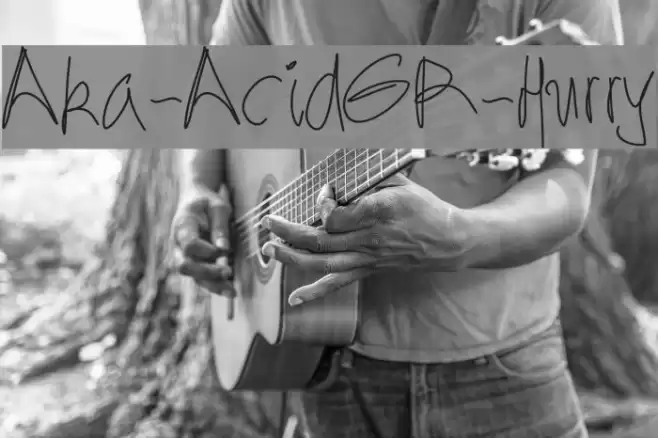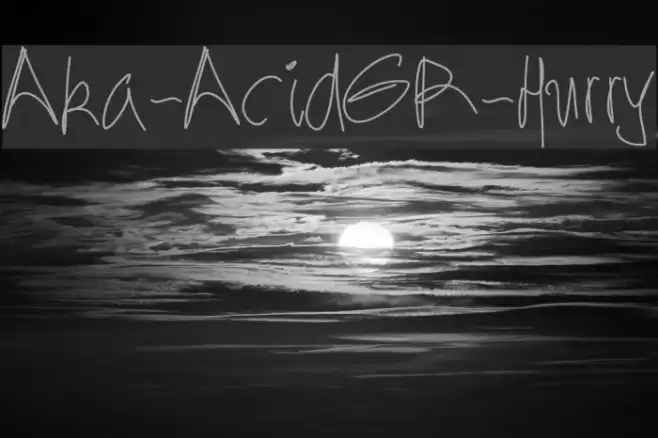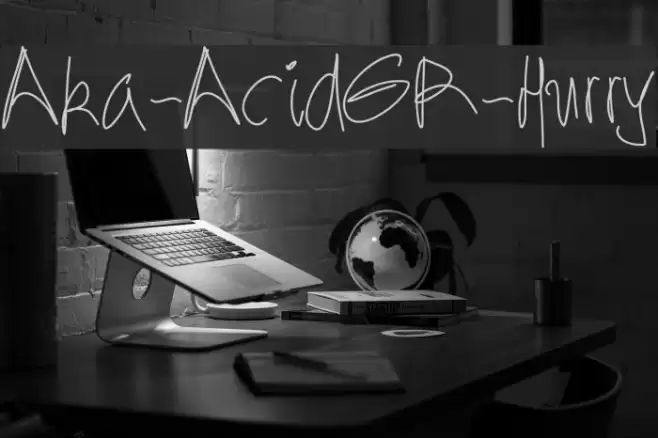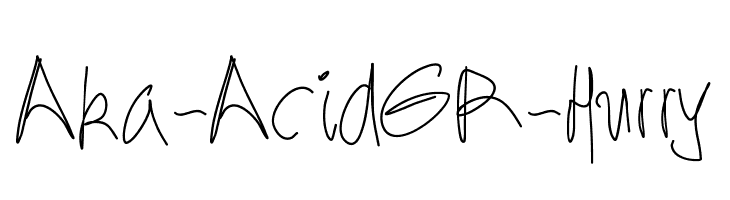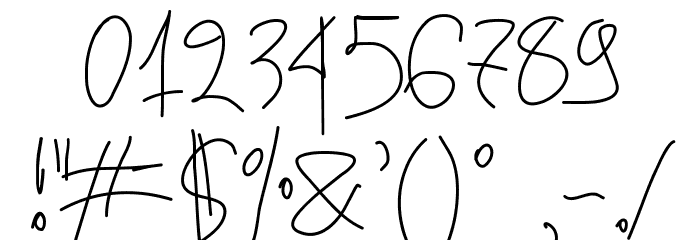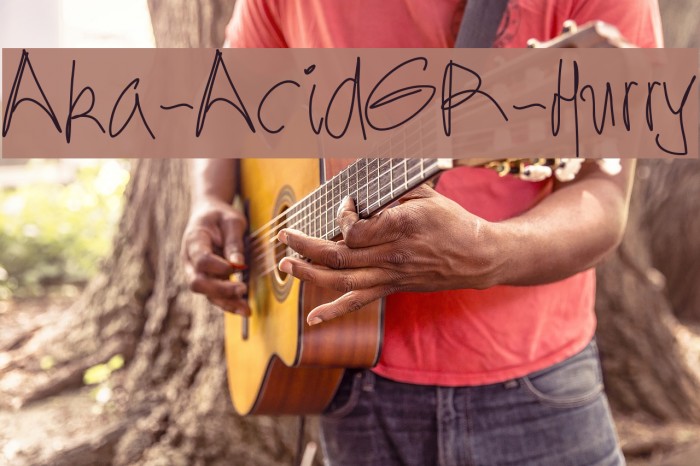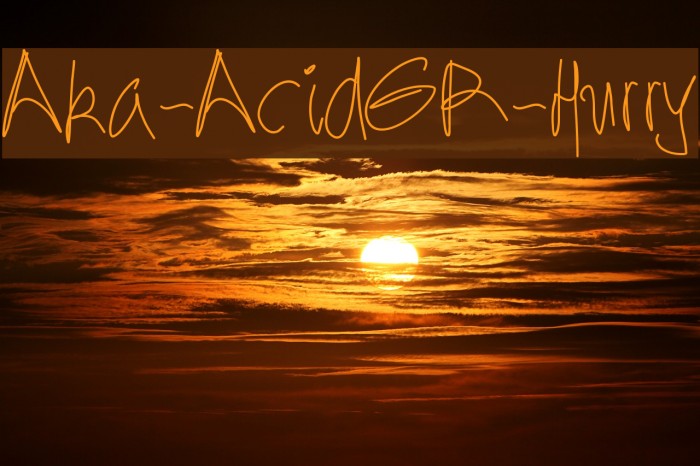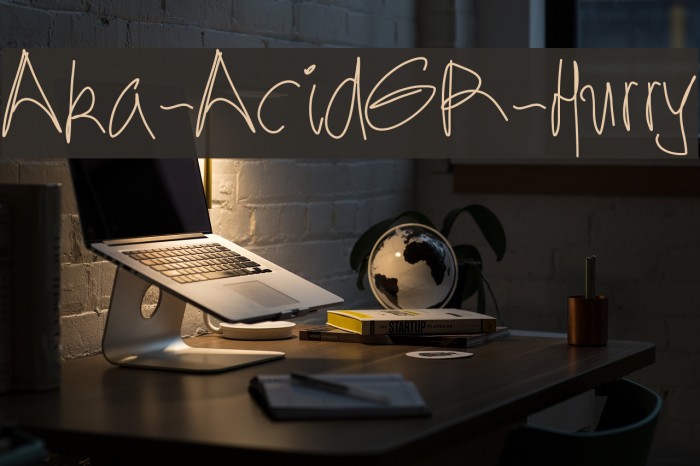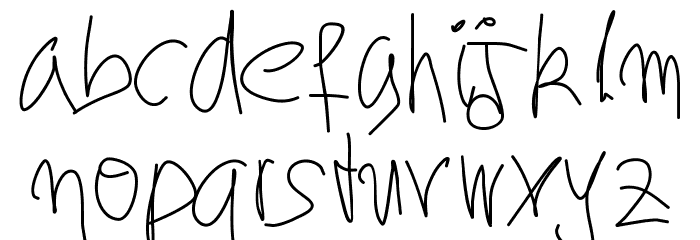
Aka-AcidGR-Hurry Font
Aka-AcidGR-Hurry Description
This font features a playful, handwritten style with a casual and spontaneous appearance. The characters are unevenly sized, with varying stroke thickness that adds to its informal charm. The uppercase and lowercase letters maintain a consistent flow, while the numerals and special characters integrate seamlessly into the overall design. The font's irregularity and dynamic strokes give it a lively and energetic feel, making it ideal for projects that require a personal touch or a sense of whimsy.
A playful, handwritten font with a casual and spontaneous style from Uncategorized fonts.
- Proposed Projects: Ideal for greeting cards, children's books, casual invitations, and creative branding projects.
- Overall Style: Casual, Playful
- Use Case: Headlines, Informal text, Creative projects